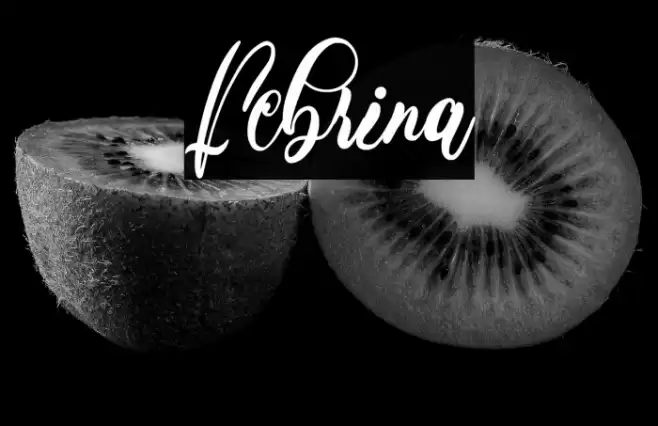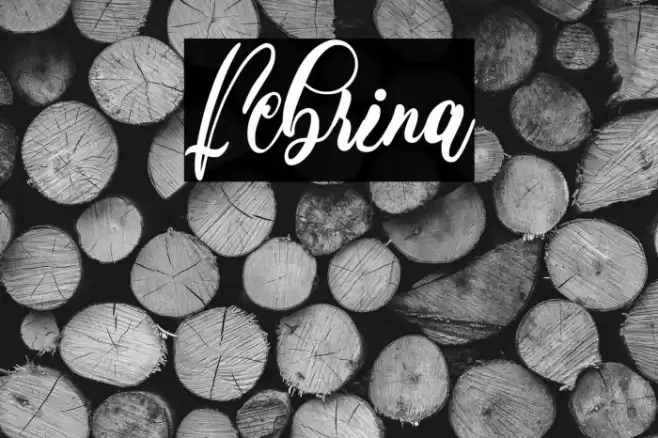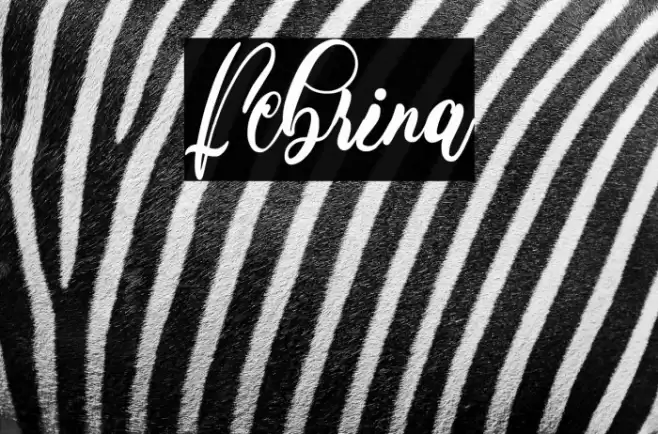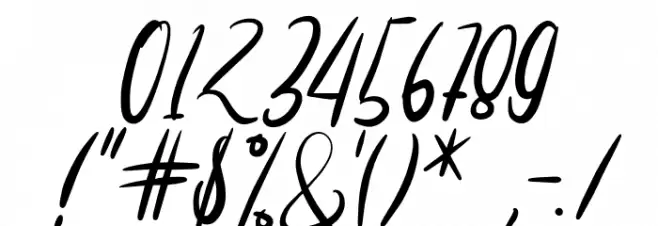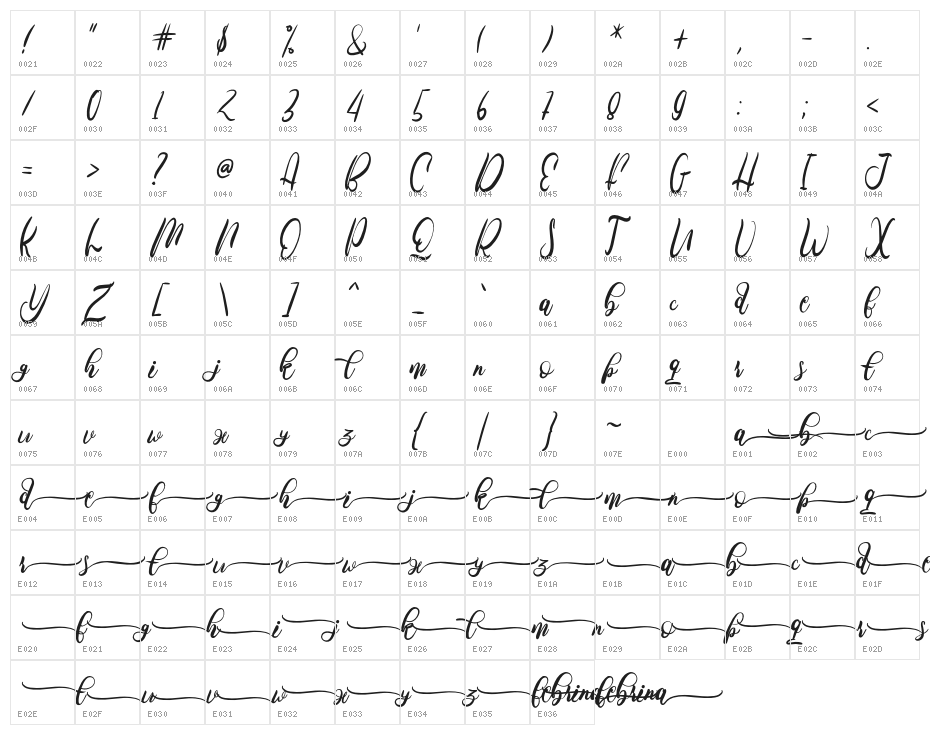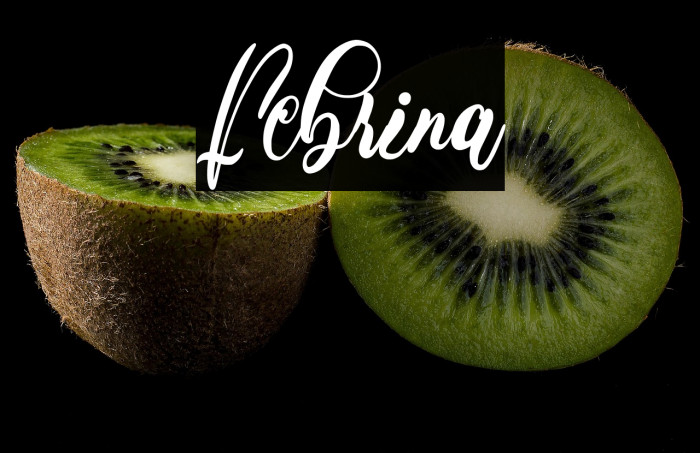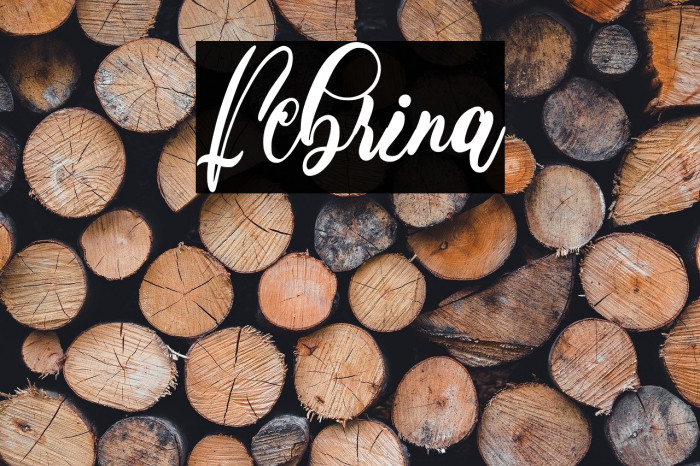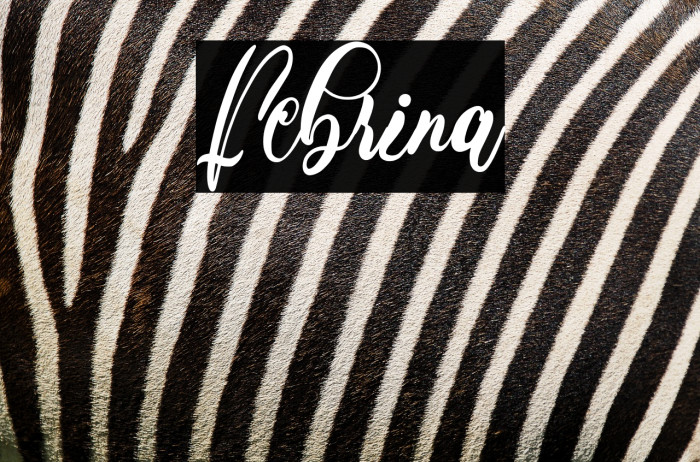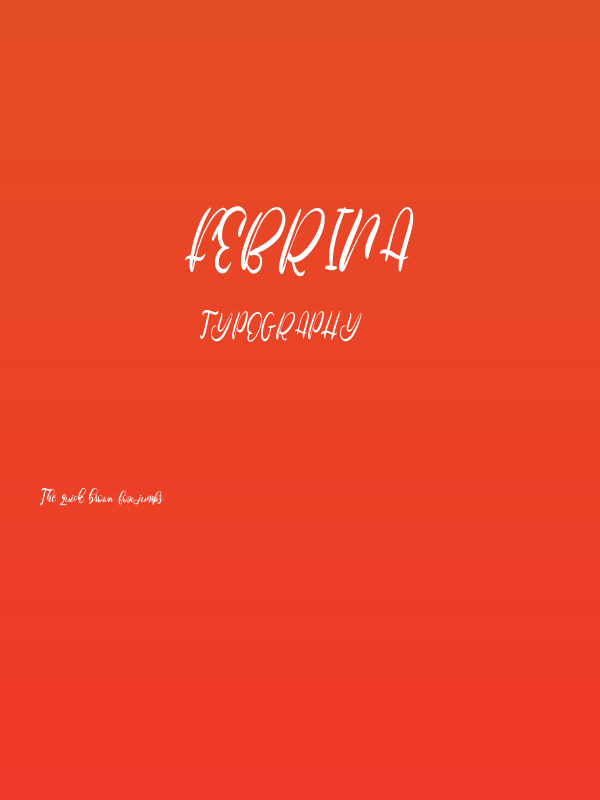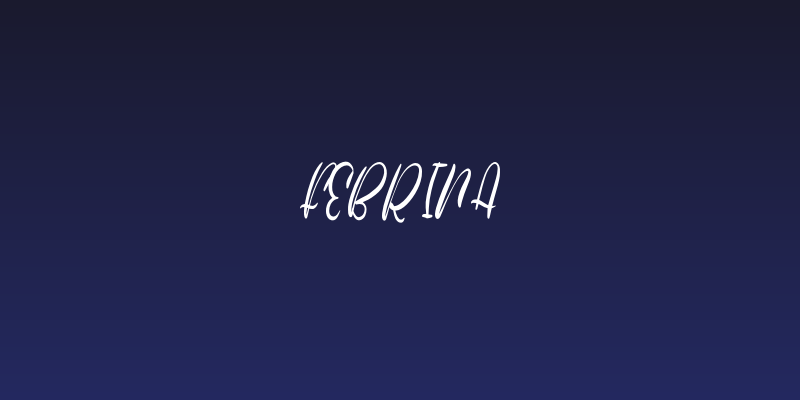
Febrina Font
Febrina Description
This font features a dynamic and flowing script style, characterized by its elegant and fluid strokes. The uppercase letters are bold and expressive, with a slight slant that adds a sense of movement and grace. The lowercase letters maintain a consistent style, with smooth curves and loops that enhance readability while maintaining a decorative flair. Numbers and special characters are designed to complement the overall aesthetic, with a similar emphasis on fluidity and style. The font's design is suitable for creating a sophisticated and artistic impression, making it ideal for projects that require a touch of elegance and creativity.
A dynamic and flowing script font with elegant, fluid strokes from Regular fonts.
- Proposed Projects: Ideal for wedding invitations, greeting cards, branding, and artistic posters.
- Use Case: Logos, Headlines, Invitations